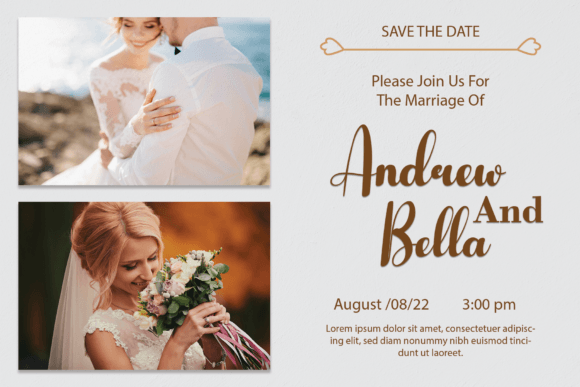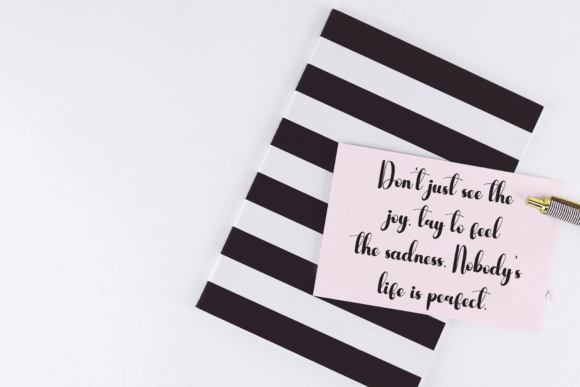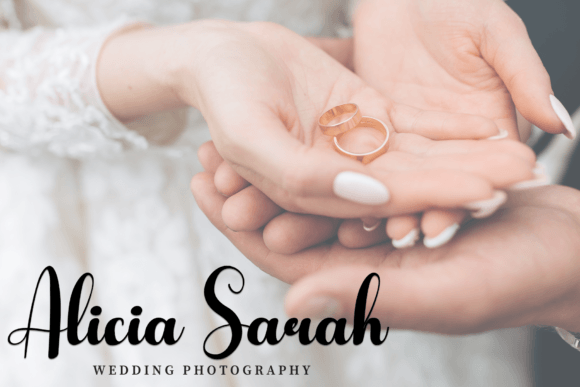
Introduction to Opposite Font
Do you remember that moment when you’re brainstorming ideas for a creative project and suddenly, a font pops into your head? For many designers, it’s the spark that ignites the entire design process. That’s exactly what happened to me when I stumbled upon the Opposite Font – a delightful handwritten font that instantly added a touch of whimsy to my design.
As a designer, finding the right font can be a game-changer for your project. And with the Opposite Font, you’ll be spoiled for choice. This sweet and friendly font is perfect for writing wedding invitations, cards, or any other design that needs a fun touch. Its high-quality design makes it an excellent addition to any creative project, and the best part? It’s available for free download, making it a valuable design resource for designers of all levels.
Key Features of Opposite Font
- Unique Design: Opposite Font offers a distinctive, high-quality design perfect for creative projects that require a touch of elegance and sophistication.
- Perfect for Logos and Branding: Opposite Font’s unique design makes it an ideal choice for creating logos, branding materials, and other visual identity elements.
Honest Review: Opposite Font
I recently had the chance to dive into the world of Opposite Font and I must say it’s been a unique experience. This high-quality font is perfect for any creative project that requires a bit of flair. With a free download option available, it’s an excellent addition to any designer’s toolkit.
Here are some things that work well with Opposite Font: ✨ It’s incredibly versatile, with a wide range of styles and weights to choose from. ✨ The transparent background makes it easy to layer and blend with other design elements. ✨ And, with a clear and simple license, it’s a transparent design resource that’s easy to work with.
However, there are a few limitations to consider: ⚠️ The font is a bit on the heavier side, which can make it difficult to use in certain contexts. ⚠️ Additionally, some of the styles can feel a bit over-the-top, which may not be suitable for every project.
Overall, I’d say that Opposite Font is a solid choice for designers looking to add some creativity to their work. While it may not be perfect for every project, it’s a high-quality design resource that’s definitely worth considering.
- Perfect for creative projects that require a bit of flair
- High-quality font with a wide range of styles and weights
- Transparent background for easy layering and blending
Opposite Font is ideal for creative projects that require a unique and eye-catching design. It’s perfect for branding materials, social media graphics, and other visual content. With its free download option, you can easily incorporate it into your design workflow.